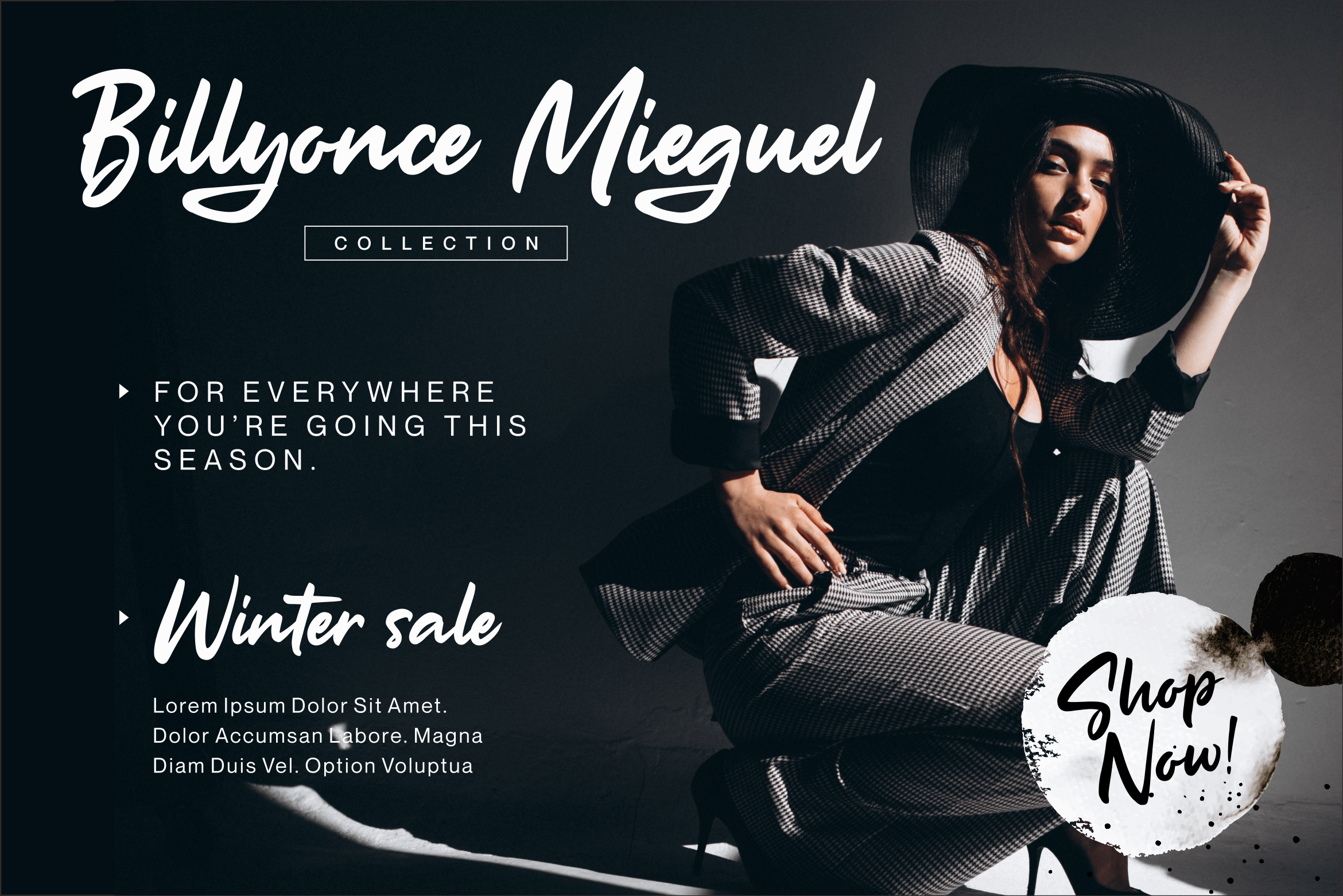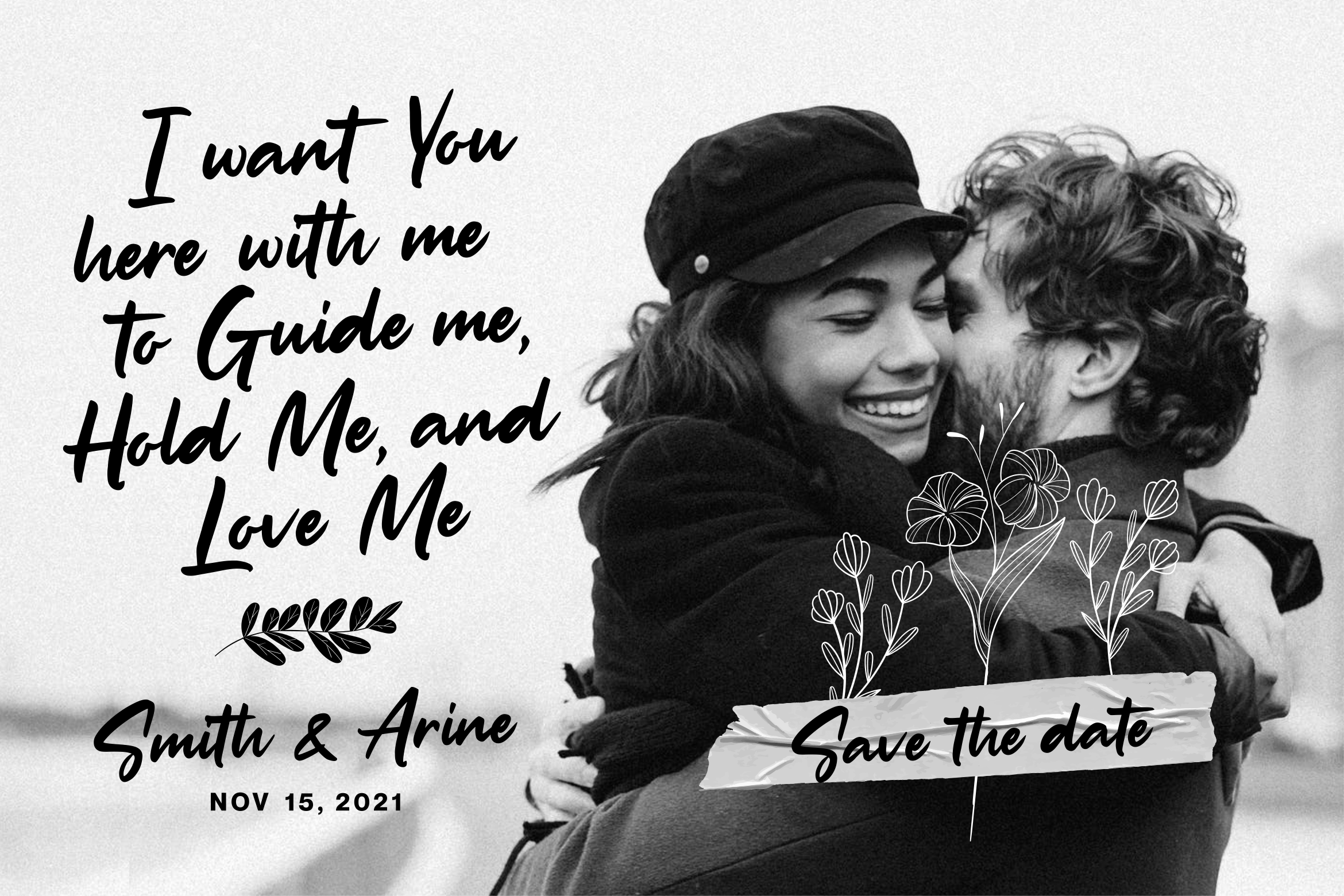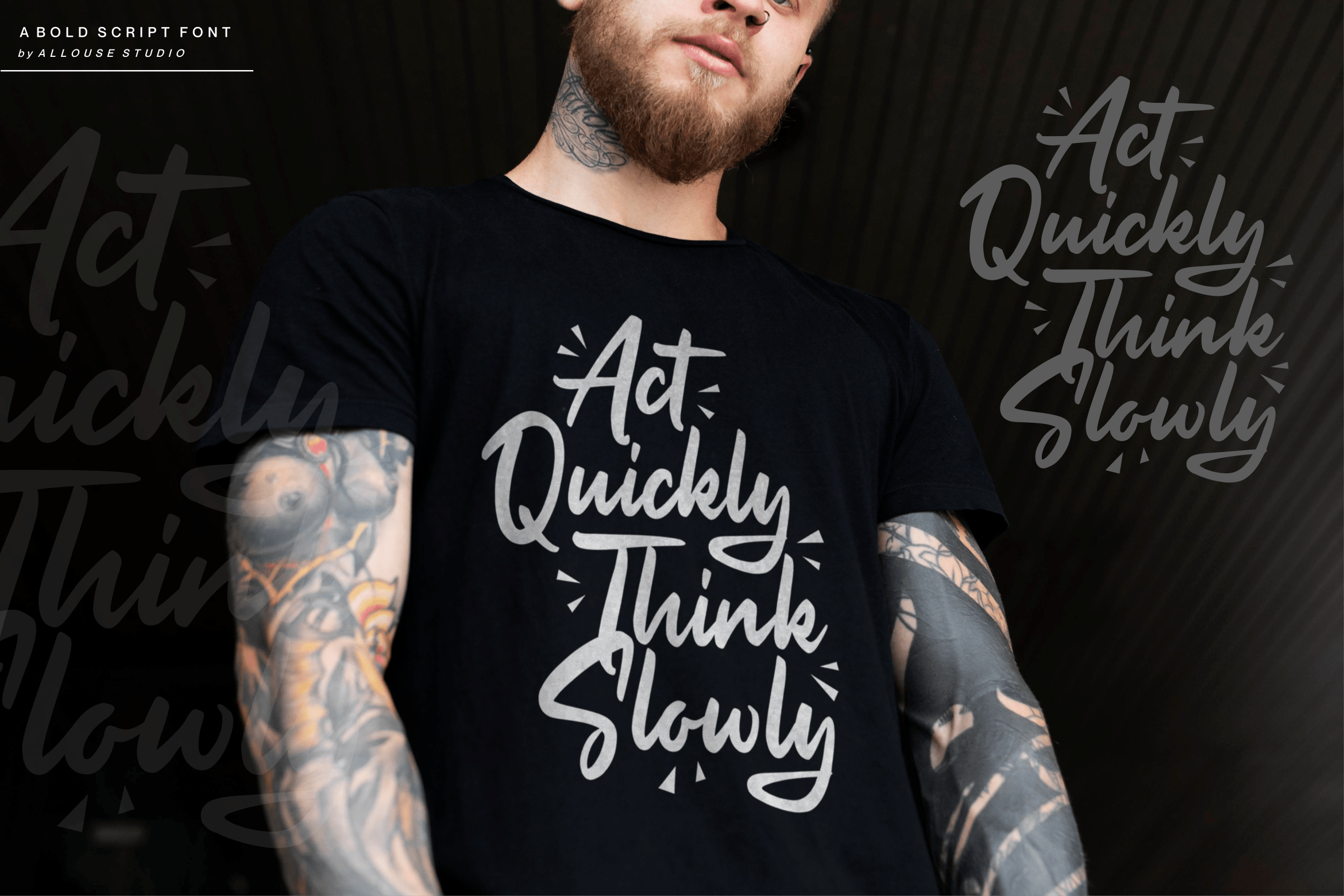
The Milligram Script Font
It’s a natural and beautiful script font that emanates versatility and joy. Its stylish alternates and ligatures make this font the perfect match for any project.